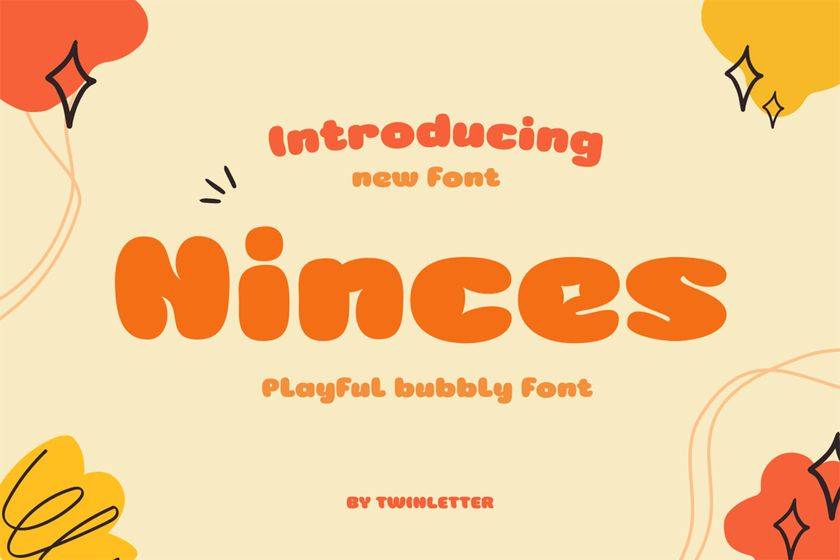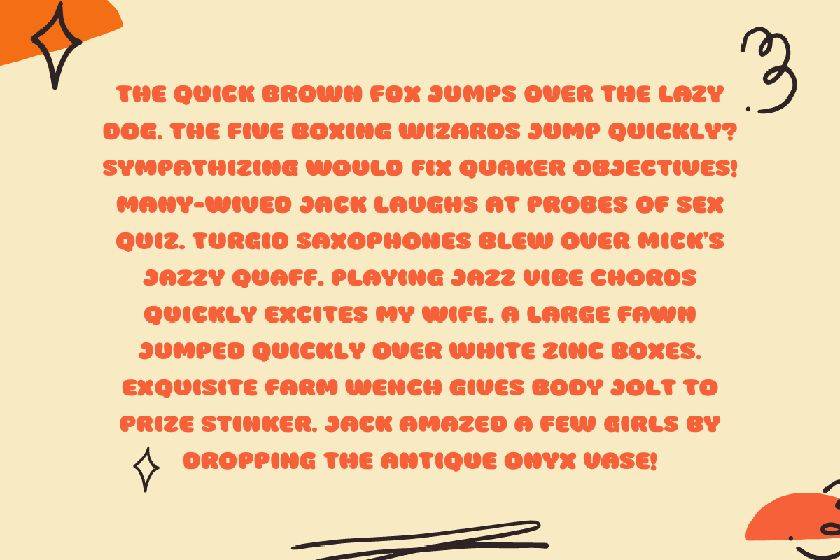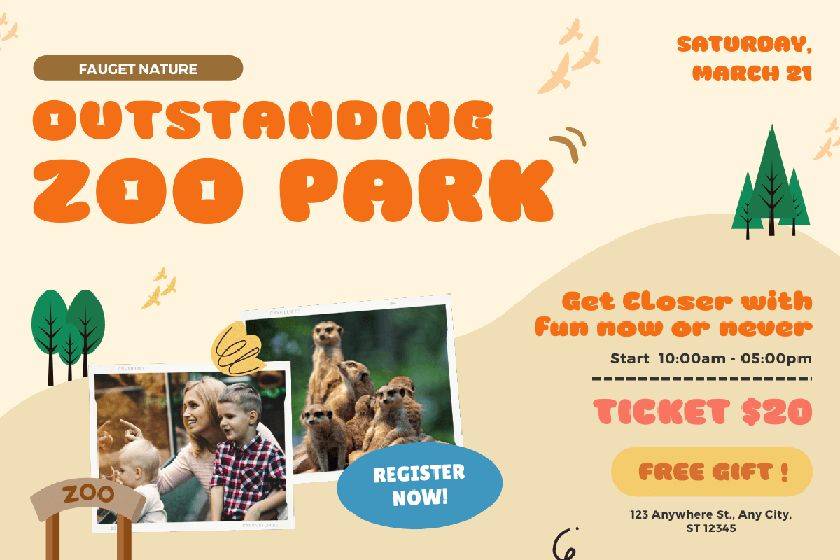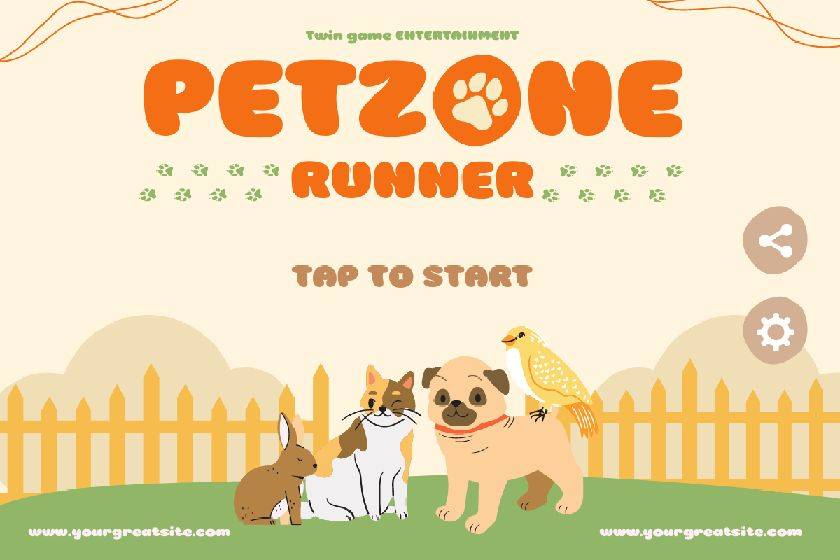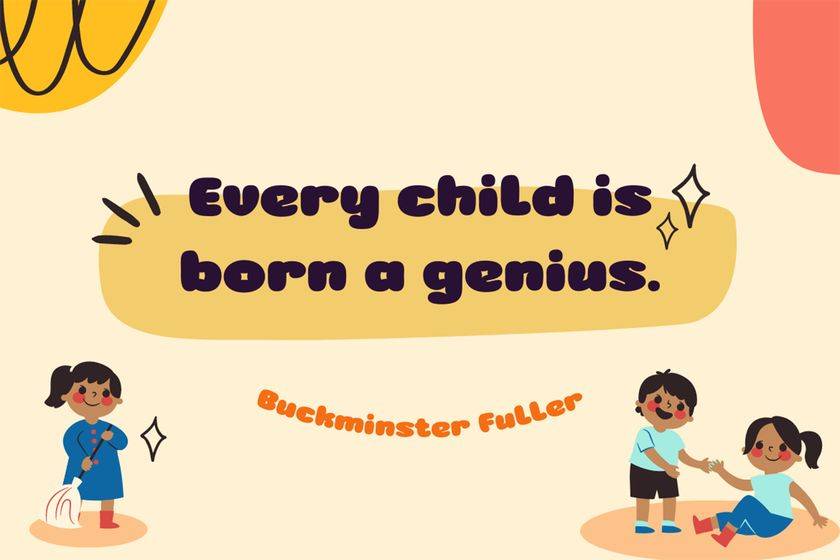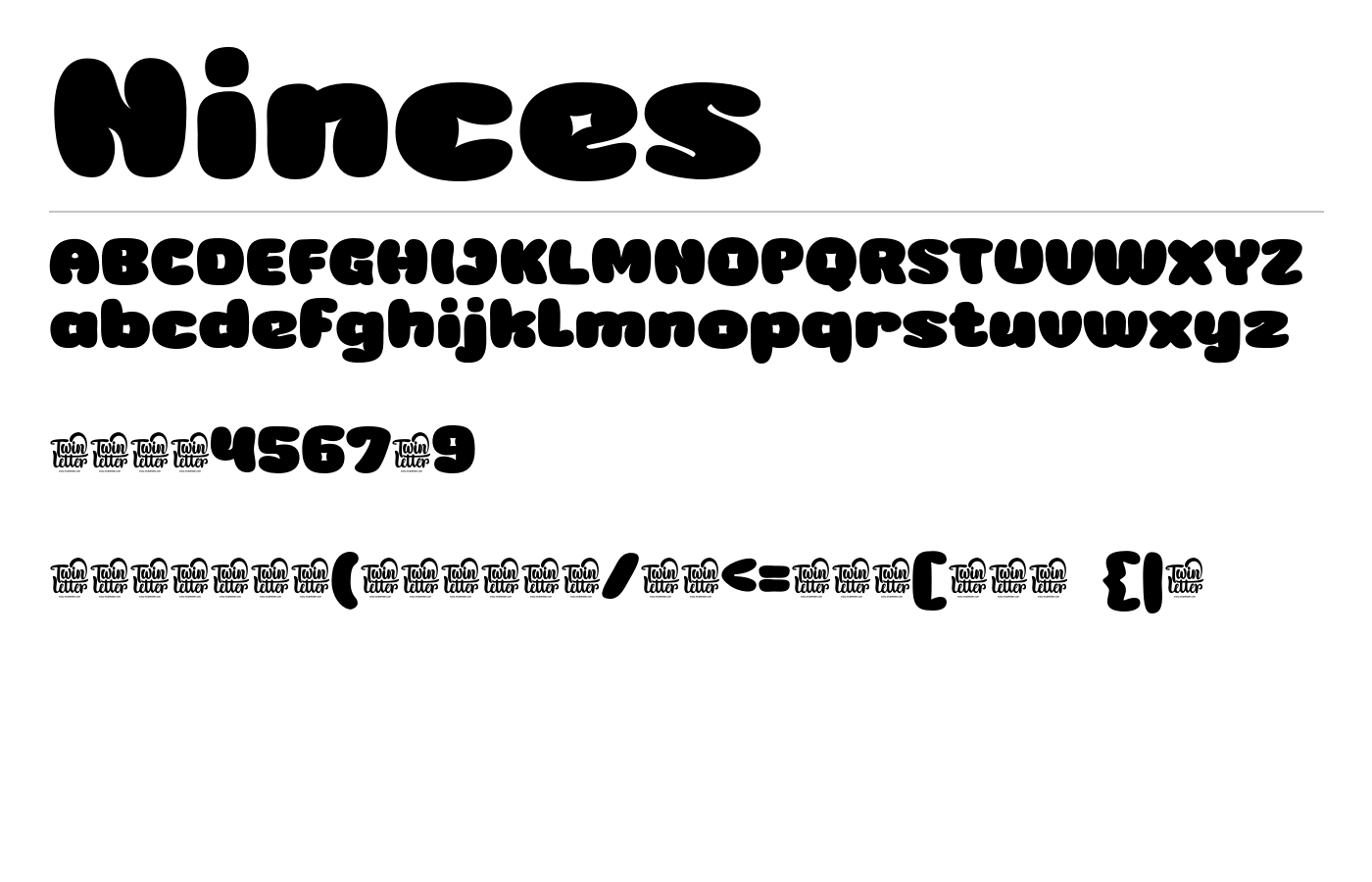
Ninces is a bold, playful rounded sans serif font with a chunky, soft appearance that exudes a friendly and approachable vibe. Its thick, smooth letterforms and consistent stroke weight make it perfect for eye-catching headlines, children's books, and branding that aims to feel fun and inviting. This font works well in informal settings where a lively and modern personality is desired.
Ninces Font
About Ninces Font